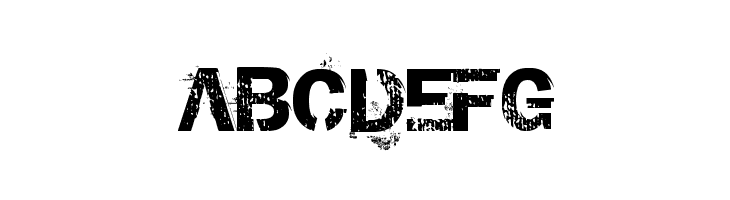
Snowflake Font
- Font: Snowflake
( Fonts by Gyom Seguin - last-soundtrack.daportfolio.com )
A bold, distressed font with a grunge texture and rugged appearance.